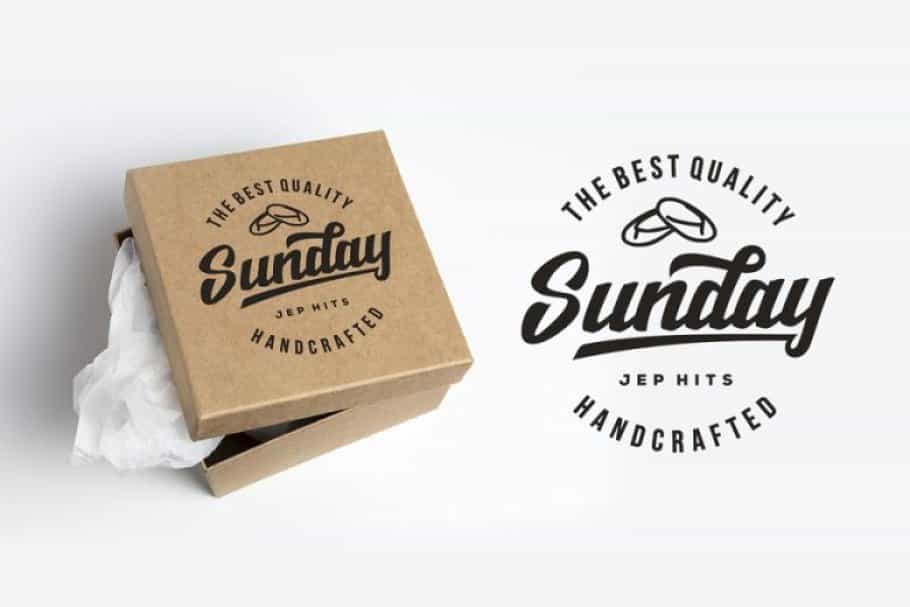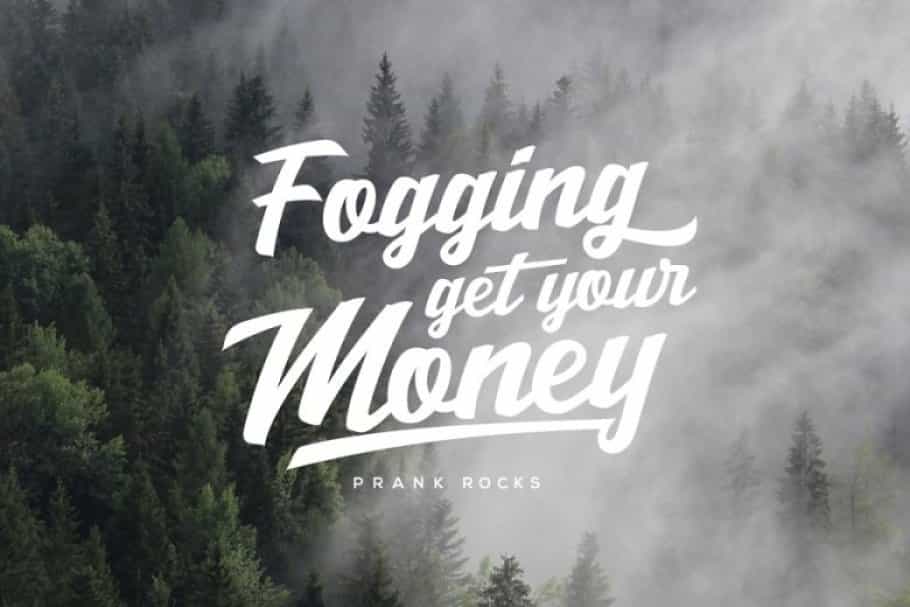
Introducing Salikin font. Salikin is a bold script font. Salikin a very good for logotype, website header, fashion design, name tag, quotes. labels, t-shirts and any other thing you can think of.